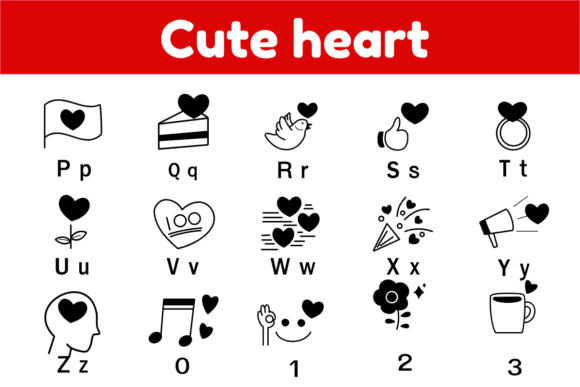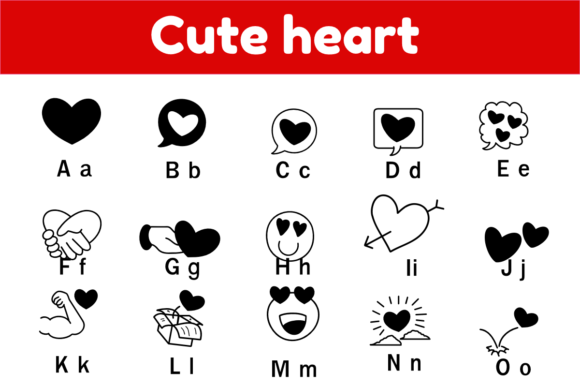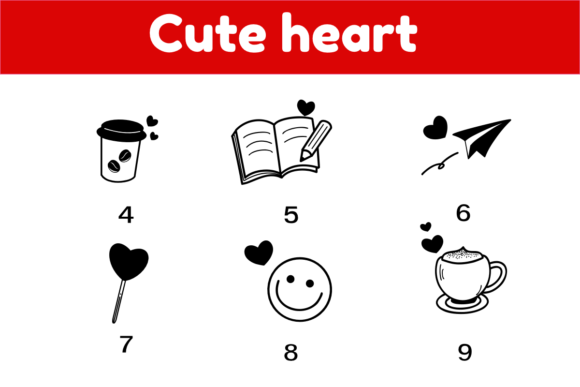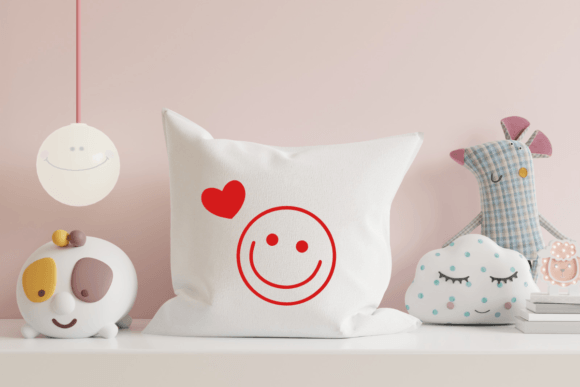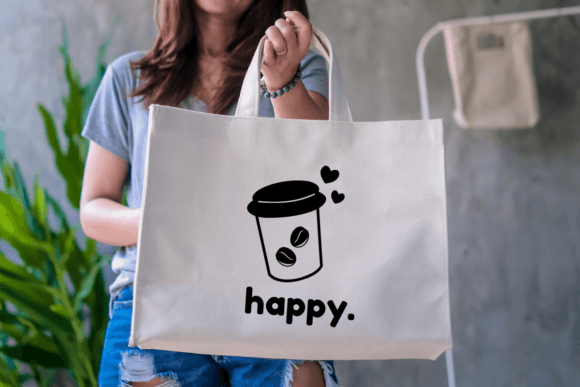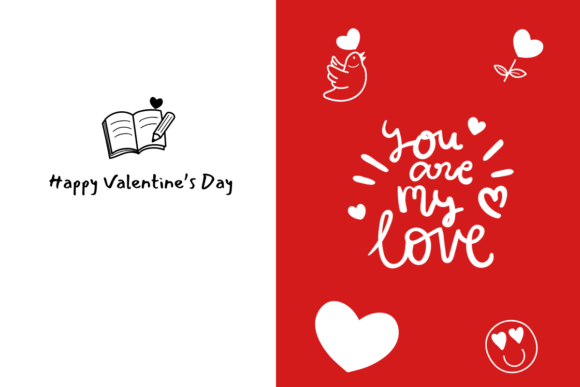
Cute Heart Font: Add a Sweet Touch to Your Designs
Are you looking for a way to add a little extra love to your messages, cards, or designs? Look no further than the Cute Heart Font! This special type of font replaces letters with adorable love-themed symbols like hearts, flowers, and smiley faces, making it perfect for anyone who wants to add a sweet touch to their creations.
What is Cute Heart Font?
Cute Heart Font is a unique and playful way to express yourself through text. Instead of using traditional letters, this font uses a variety of cute and colorful symbols to convey your message. Imagine being able to write out your favorite quote or phrase using only hearts, flowers, and smiley faces – it’s a fun and creative way to add some personality to your designs!
How to Use Cute Heart Font
Using Cute Heart Font is easy! Whether you’re a designer, crafter, or just someone who loves to send sweet messages, this font is perfect for you. Here are a few ways you can use Cute Heart Font:
- Messages and Cards: Add a personal touch to your messages and cards by using Cute Heart Font. It’s perfect for Valentine’s Day, anniversaries, or just because.
- Designs and Graphics: Use Cute Heart Font to add a playful touch to your designs and graphics. It’s great for creating social media posts, flyers, or any other type of visual content.
- Crafting: If you love to craft, Cute Heart Font is a great way to add a personal touch to your projects. Use it to create custom titles, headings, or even entire phrases.
Benefits of Using Cute Heart Font
There are many benefits to using Cute Heart Font in your designs and messages. Here are a few:
- Adds a Personal Touch: Cute Heart Font adds a personal touch to your messages and designs, making them more special and meaningful.
- Perfect for Love-Themed Occasions: This font is perfect for love-themed occasions like Valentine’s Day, anniversaries, and weddings.
- Easy to Use: Cute Heart Font is easy to use and can be incorporated into a variety of designs and messages.
- Playful and Fun: This font is playful and fun, making it perfect for anyone who wants to add a little extra joy to their designs and messages.
Tips for Using Cute Heart Font
Here are a few tips for using Cute Heart Font:
- Use it Sparingly: While Cute Heart Font is adorable, it can be overwhelming if used too much. Use it sparingly to add a touch of sweetness to your designs and messages.
- Mix and Match: Don’t be afraid to mix and match different symbols and fonts to create a unique look.
- Consider Your Audience: Consider your audience when using Cute Heart Font. While it’s perfect for love-themed occasions, it may not be suitable for more formal or professional designs.
Cute Heart Font is a fun and creative way to add a sweet touch to your designs and messages. With its adorable love-themed symbols and easy-to-use format, it’s perfect for designers, crafters, and anyone who wants to add a little extra love to their creations. Whether you’re looking for a font for Valentine’s Day, anniversaries, or just because, Cute Heart Font is a great choice.